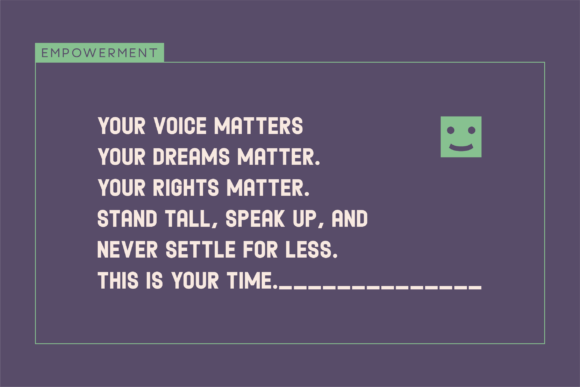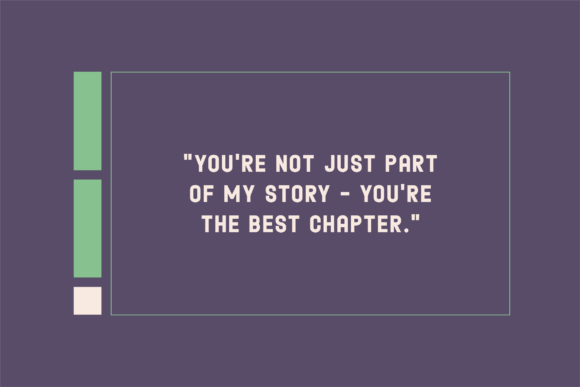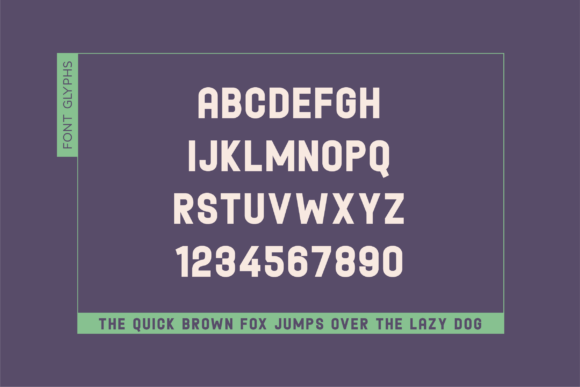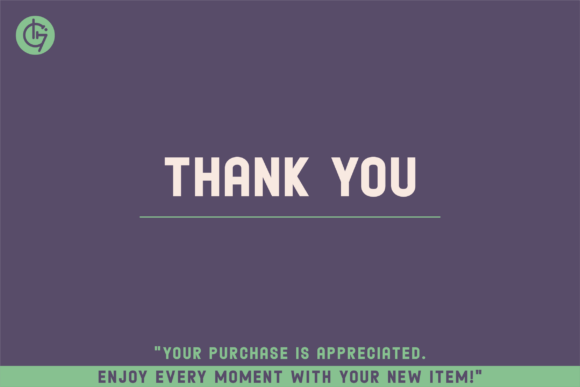
A New Era of Design: Introducing Asthenom Font
As designers, we’ve all been there – staring at a blank page, trying to find the perfect font to bring our vision to life. The blank canvas is a daunting challenge, but what if you had a font that could elevate your designs and leave a lasting impression? That’s where Asthenom Font comes in – a modern sans serif typeface designed to make a statement and capture attention.
Asthenom Font is the perfect solution for designers who want to convey strength, authority, and professionalism in their work. Its clean lines, minimalist aesthetic, and all-caps design make it ideal for a wide range of projects, from logos and websites to print materials and digital interfaces. With Asthenom Font, you can create bold, eye-catching designs that stand out from the crowd and leave a lasting impression.
- Unique Characteristics: Asthenom Font features a unique, modern design with a mix of geometric and organic elements, making it perfect for creating eye-catching and professional-looking designs.
Asthenom Font Review
I recently had the chance to work with the Asthenom font, and I must say it’s been a mixed bag. There are definitely some things I love about it, but there are also some limitations that I’ll discuss below.
- The Asthenom font has a unique, modern aesthetic that sets it apart from other sans-serif fonts. It’s perfect for designers looking to add some visual interest to their projects.
- The font is highly legible, even at small font sizes. This makes it a great choice for applications where text is a key element, such as websites and mobile apps.
- The font is also very versatile and can be used for a wide range of design projects, from branding and marketing materials to editorial content.
- The Asthenom font is not ideal for body text at large font sizes. The letterforms can become cluttered and difficult to read when used at sizes above 24 points.
- The font is not as robust as some other sans-serif fonts, and may not be suitable for use in applications where a high degree of precision is required.
Overall, I would say that the Asthenom font is a solid choice for designers looking to add some visual interest to their projects. While it has some limitations, it’s a great option for applications where legibility and versatility are key. However, it may not be the best choice for projects that require a high degree of precision or large font sizes.
Getting the Most Out of Asthenom Font
To get the most out of Asthenom Font, try the following:
- Experiment with different font sizes and styles to create visual interest
- Combine Asthenom Font with other fonts to create a unique look
- Use Asthenom Font to create a cohesive brand identity
Asthenom Font is ideal for:
- Designing posters and flyers for events or promotions
- Creating brand identity materials such as business cards and letterheads
- Designing digital products such as e-books and infographics Alternatives to Asthenom Font
- Choose a bold, high-contrast background to highlight the font’s unique characteristics.
3 Creative Project Ideas using Asthenom Font
Project 1: Asthenom Typographic Poster
A stunning visual representation of the Asthenom font, perfect for graphic designers and typography enthusiasts.
To use Asthenom Font in this project:
Combining Asthenom Font with other design elements:
Project 2: Asthenom-infused Brand Identity
A comprehensive brand identity package that incorporates the Asthenom font as a core design element.
To use Asthenom Font in this project:
Combining Asthenom Font with other design elements: